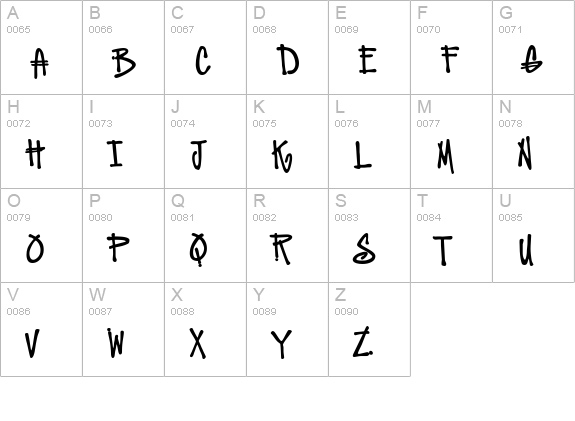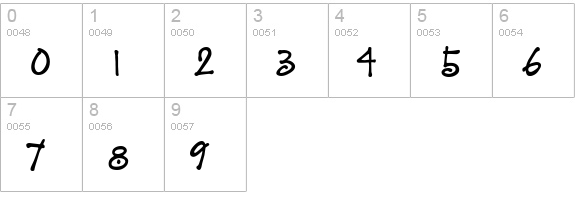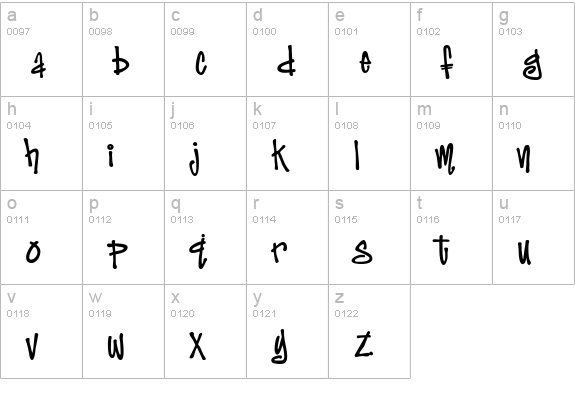
PFHyperactive Font Details
Introducing PFHyperactive font - a dynamic and energetic typeface that exudes a sense of movement and excitement. With its bold strokes and playful design, PFHyperactive is perfect for projects that require a touch of fun and liveliness. This versatile font is ideal for a variety of creative applications, from branding and advertising to posters and social media graphics. Whether you're looking to make a statement or add a pop of personality to your designs, PFHyperactive is sure to capture attention and leave a lasting impression. Best of all, PFHyperactive is available for free download at FontsMarket.com. So why wait? Add this vibrant font to your collection today and let your creativity run wild with PFHyperactive!